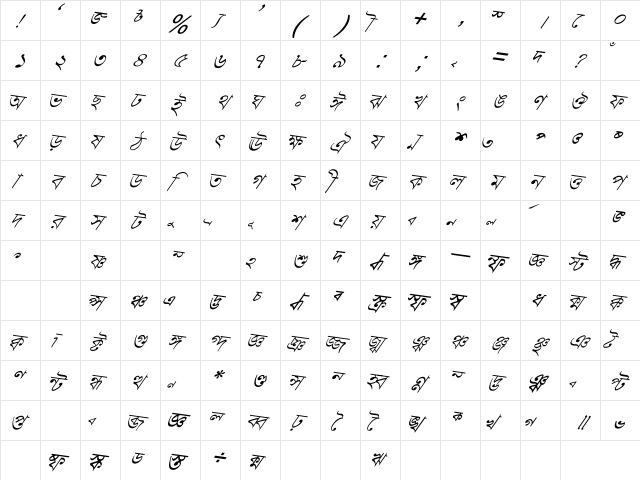
Progoty Skew Regular
Design Context for Progoty Skew Typeface
Progoty Skew offers clean, dependable letterforms without strong stylistic allegiance, making it a practical choice for designers who need flexibility.